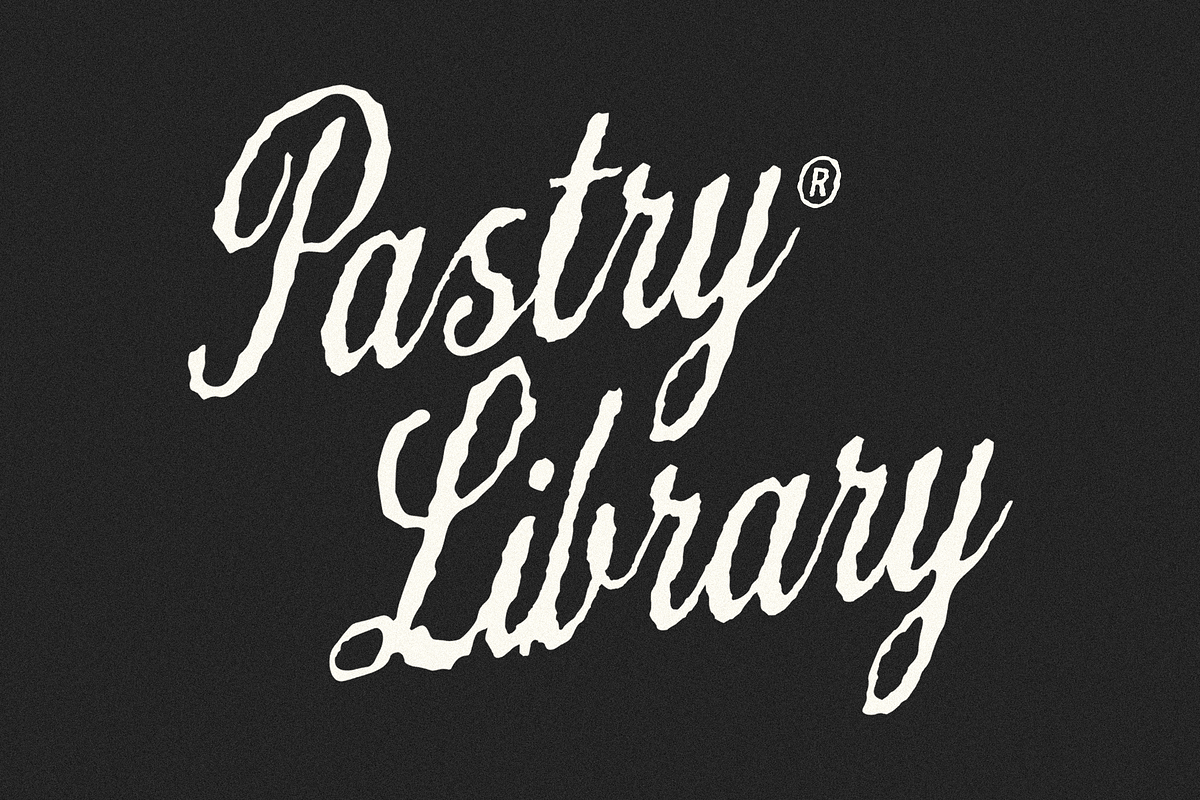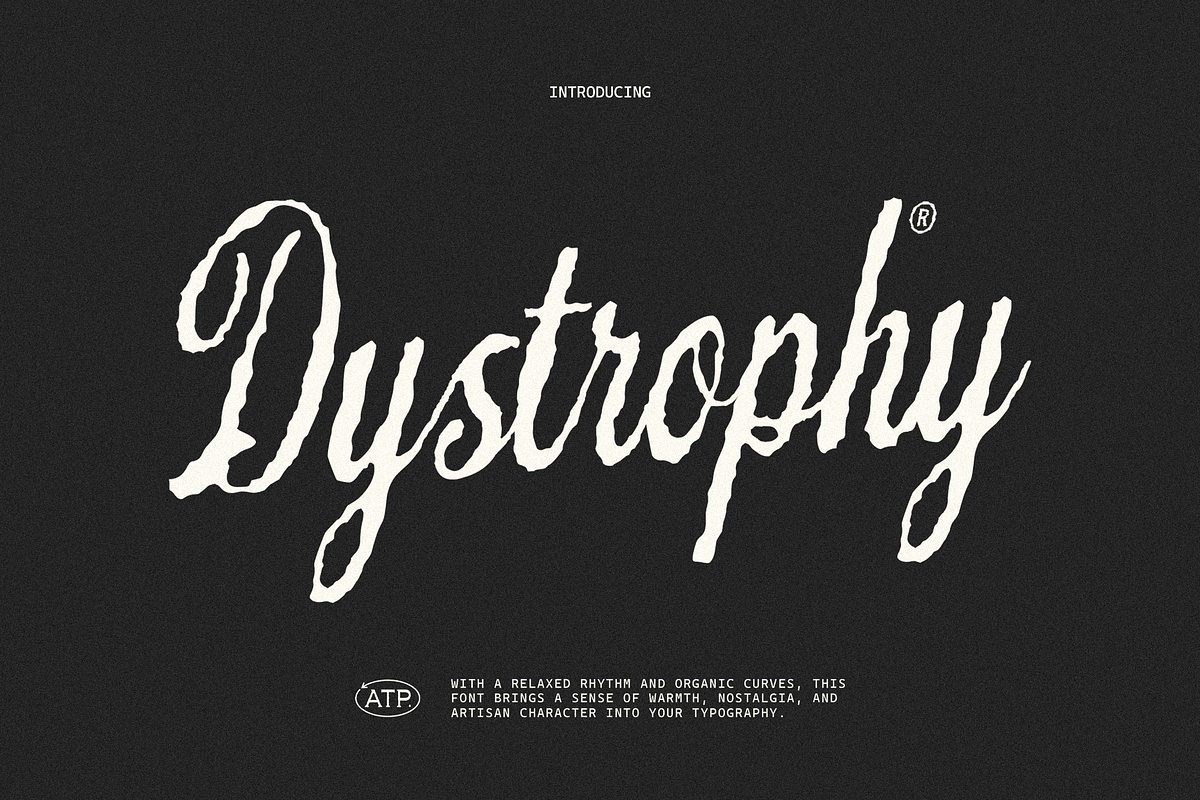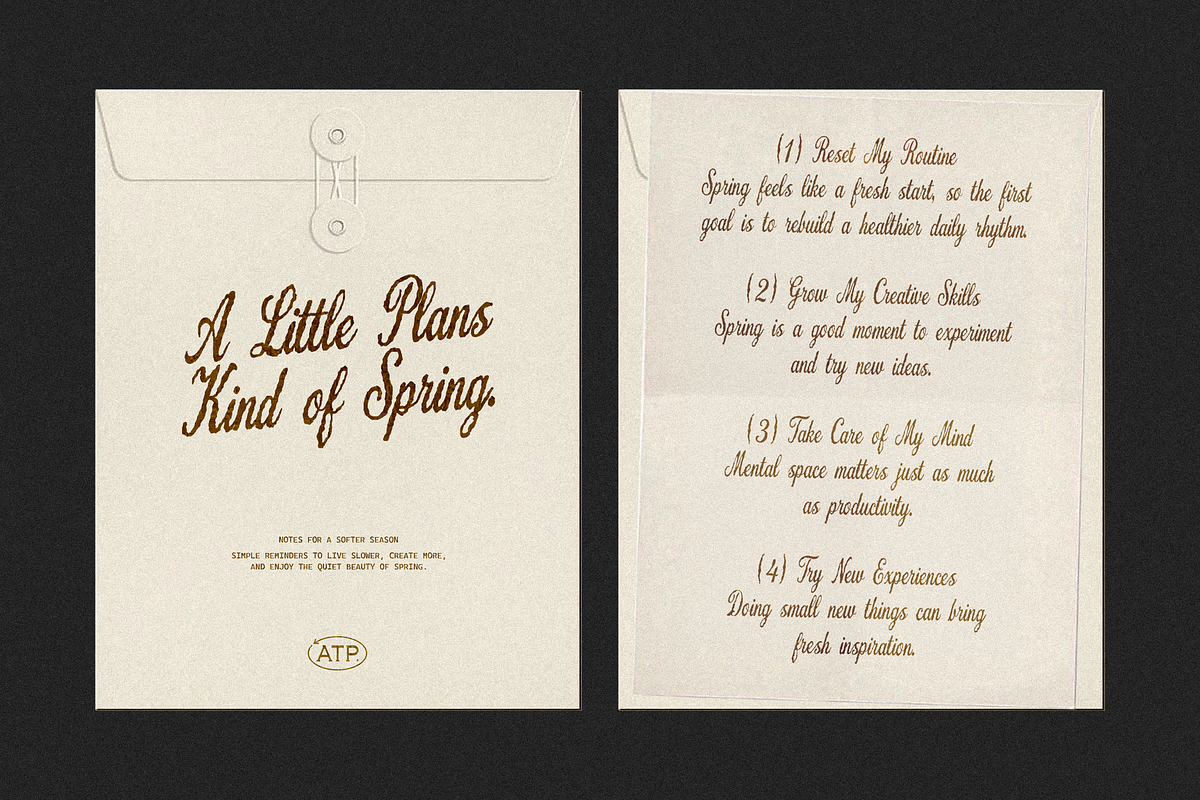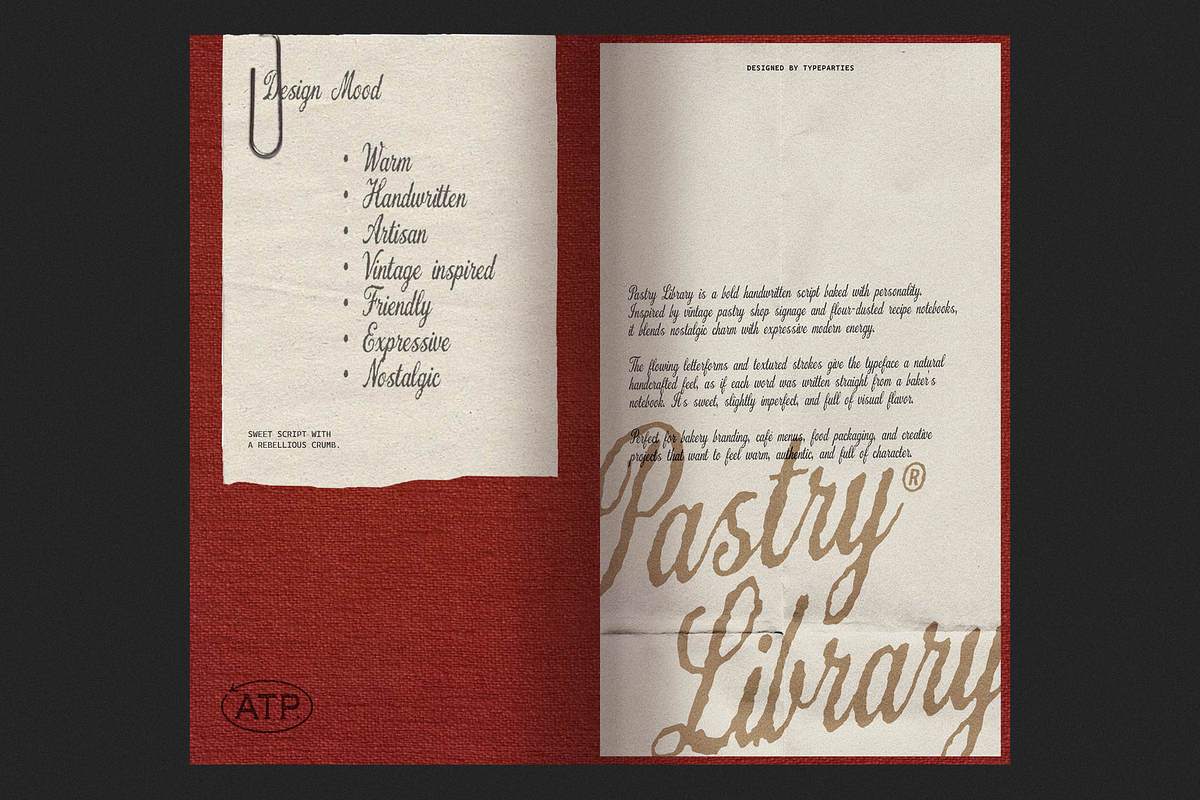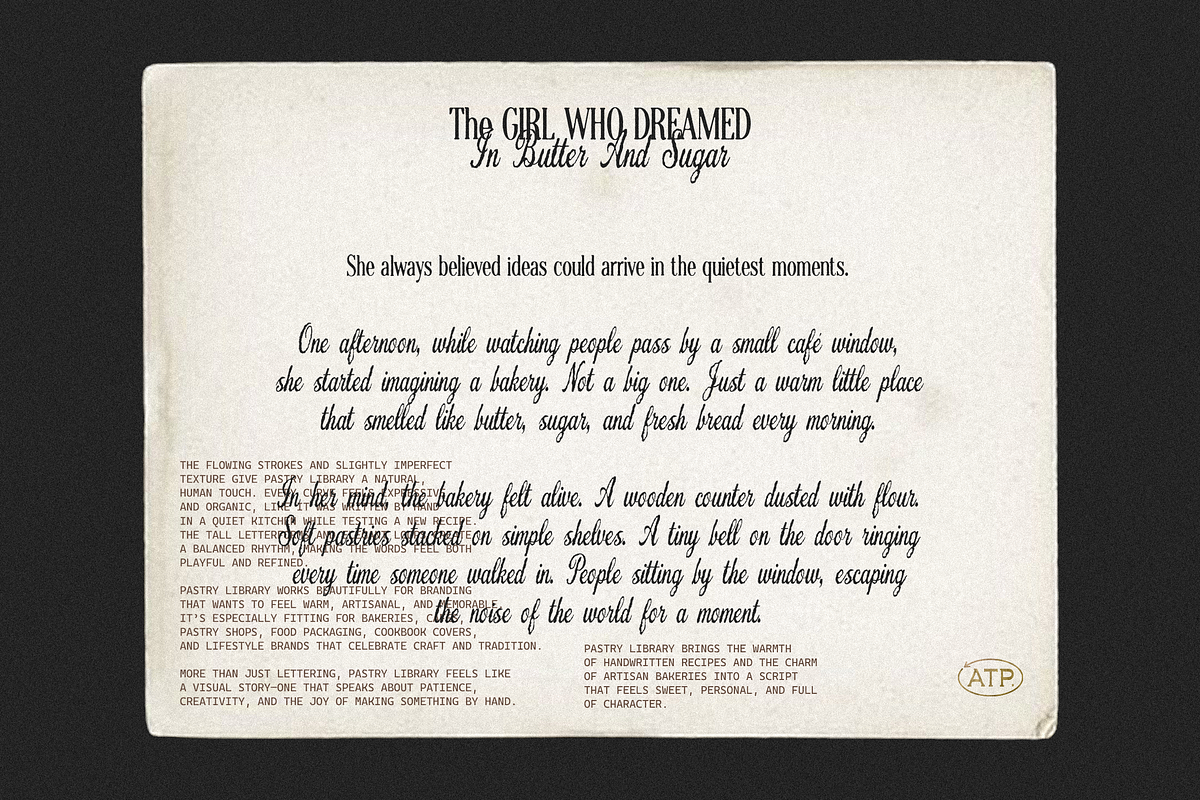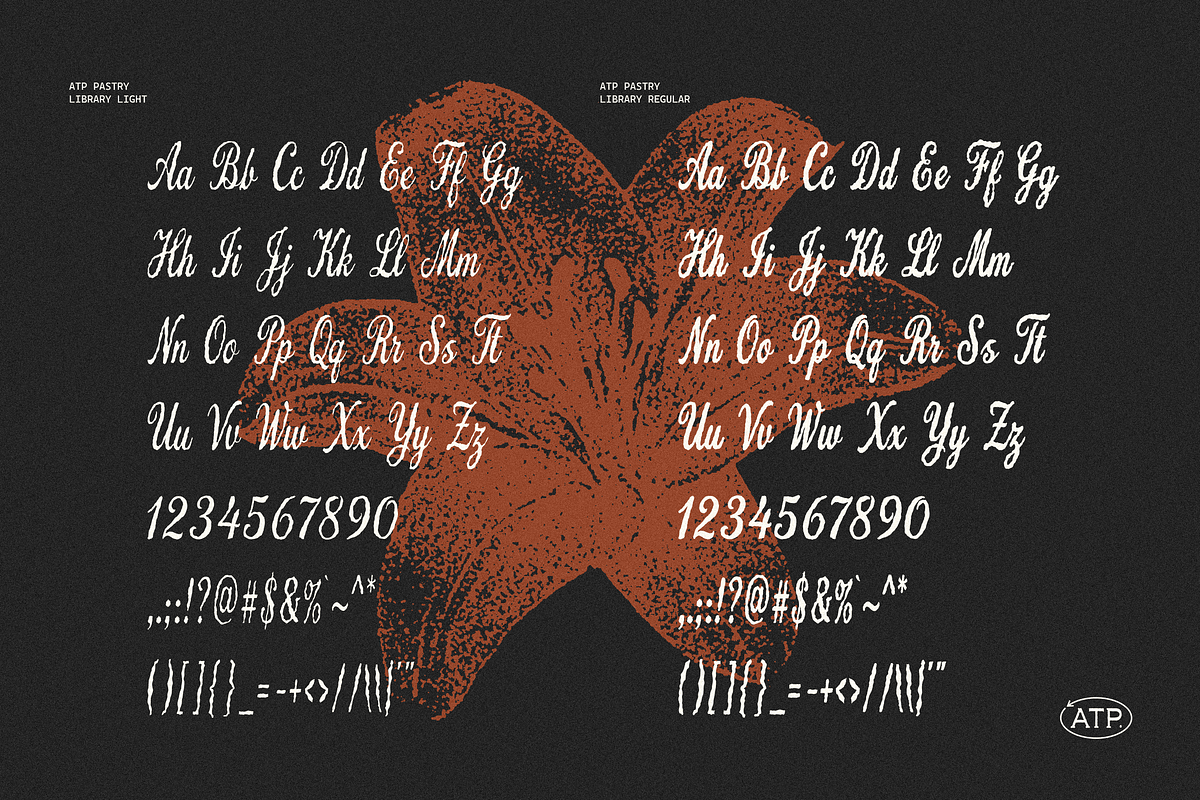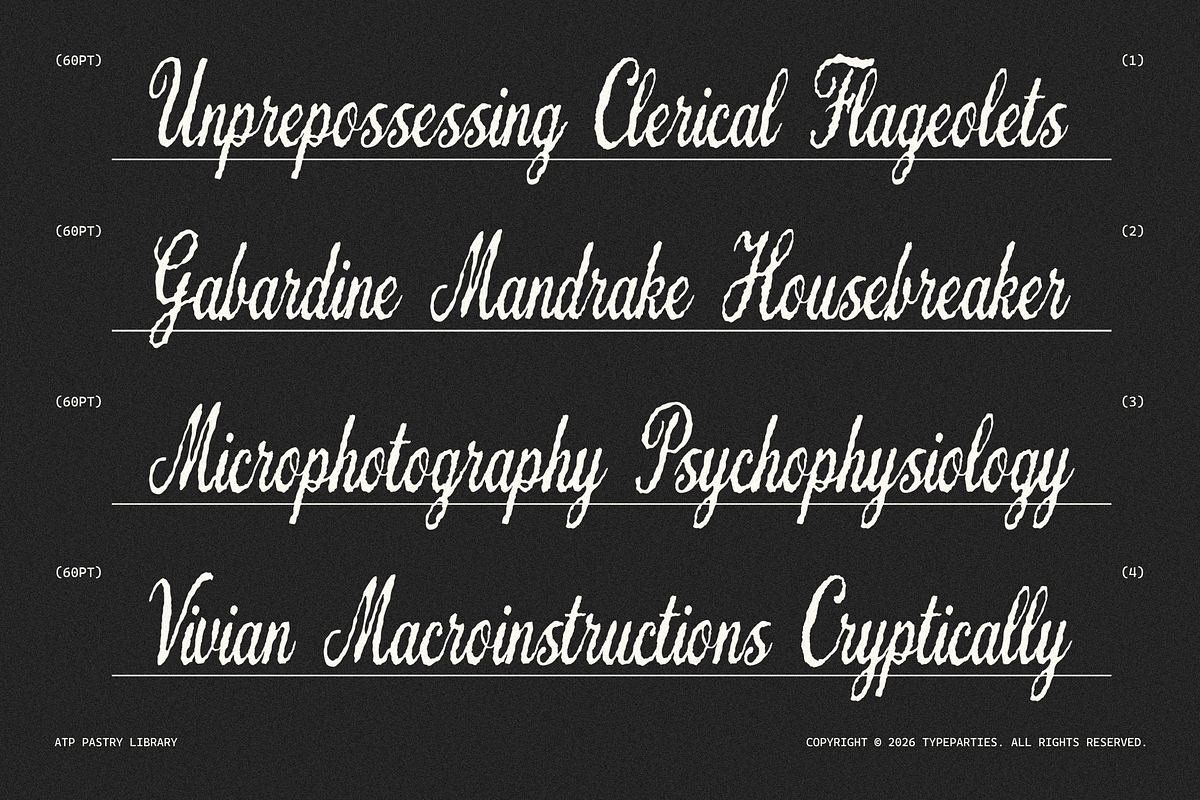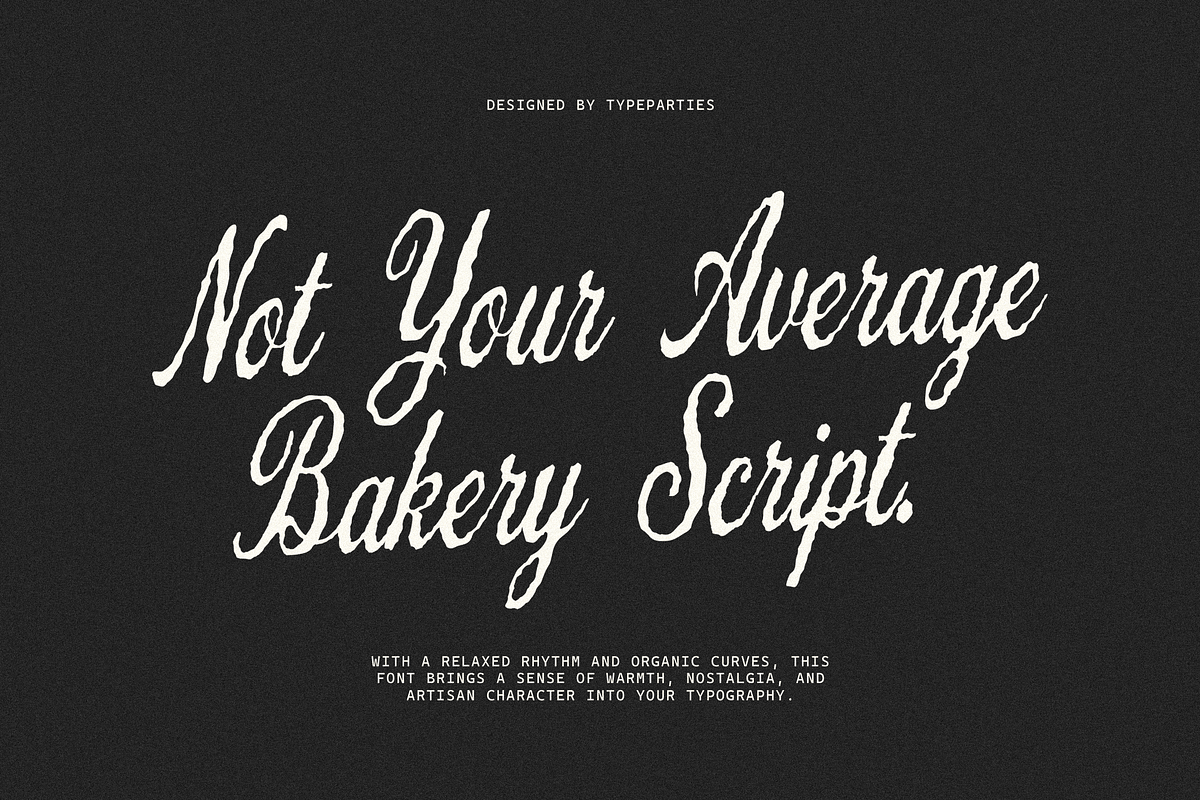
Pastry Library - Vintage Script Font
A warm, hand-drawn script inspired by the cozy atmosphere of old pastry shops and neighborhood bakeries. The letters feel natural and slightly imperfect, like something written quickly on a chalkboard menu while the smell of fresh bread fills the room. It carries a soft vintage mood while still feeling playful and alive.
Every curve in this typeface was drawn to feel personal and human. The strokes move like real handwriting, giving your design a relaxed rhythm that works beautifully for branding, packaging, café menus, posters, and social media graphics. It has that sweet handmade energy that instantly makes a design feel more friendly and approachable.
Pasty Library comes in two styles: Light and Regular, so you can easily create contrast and hierarchy in your layout. The Light style feels airy and elegant, perfect for delicate headlines or subtle branding, while the Regular style gives a stronger presence that works great for titles, packaging, and logo designs.